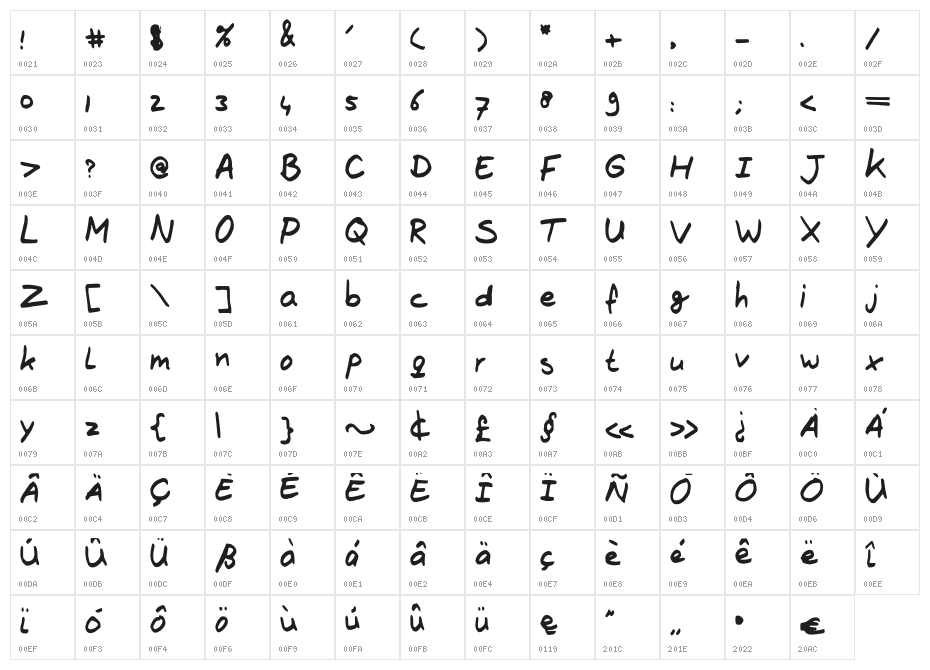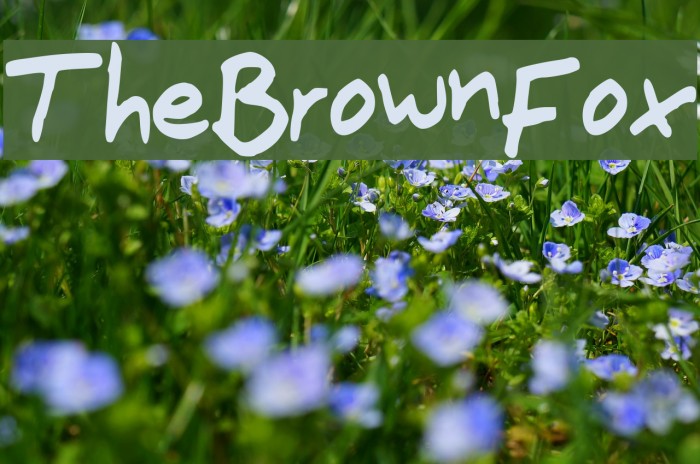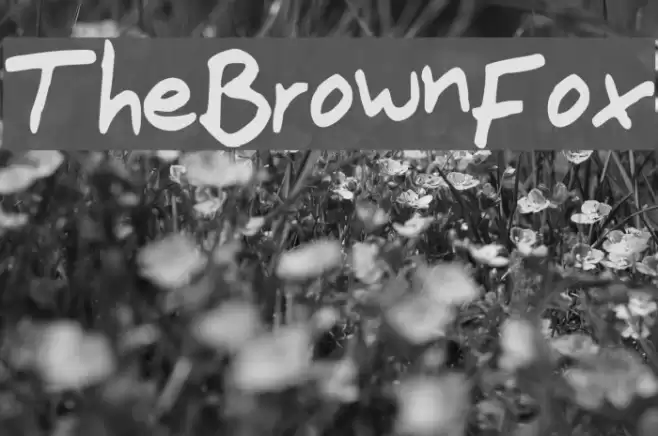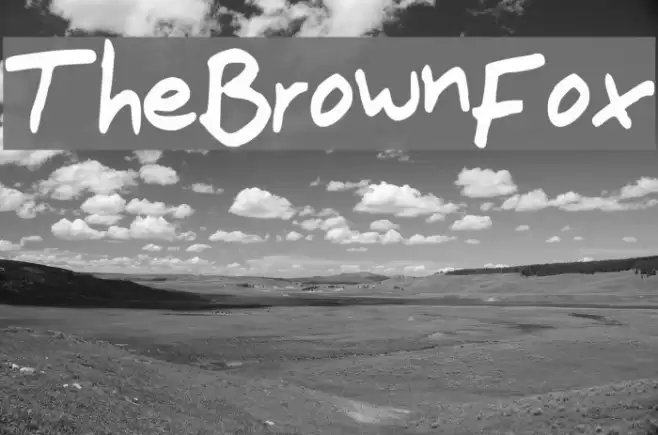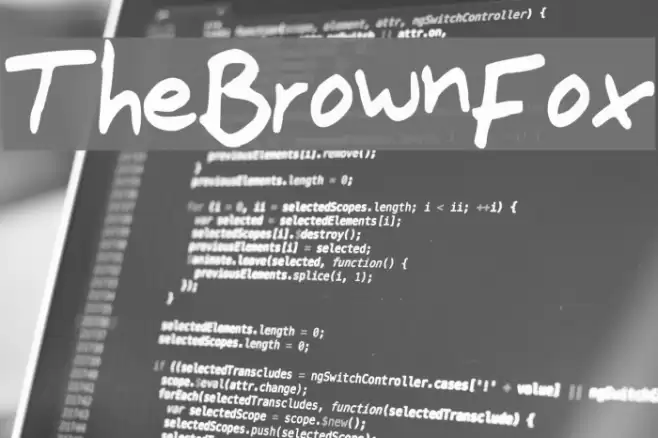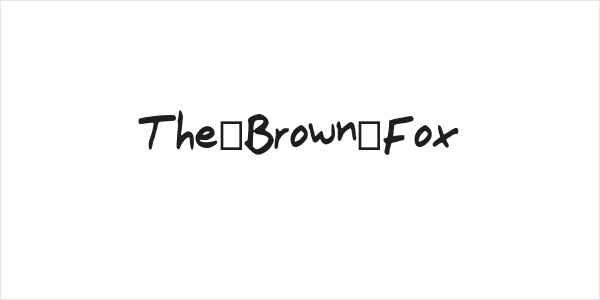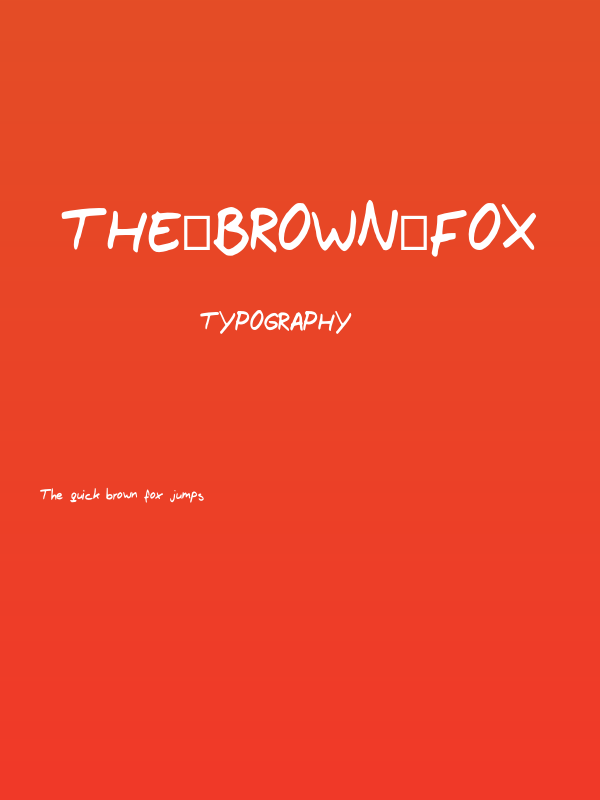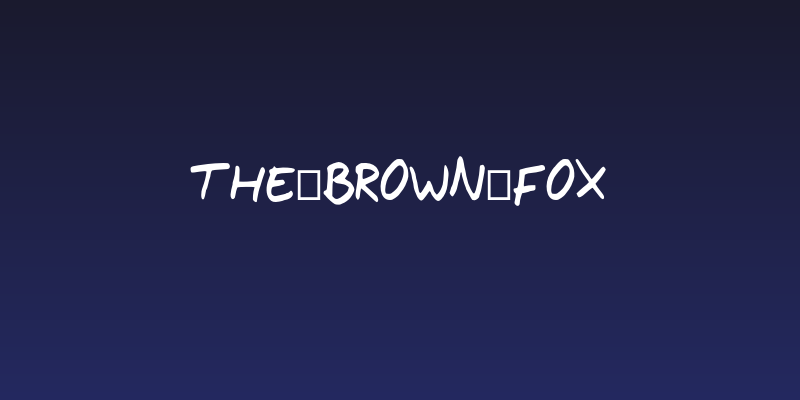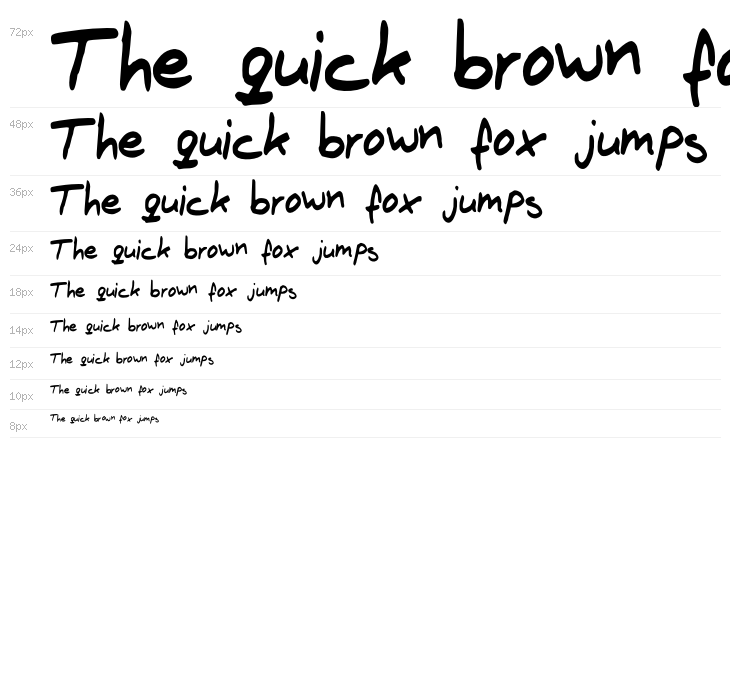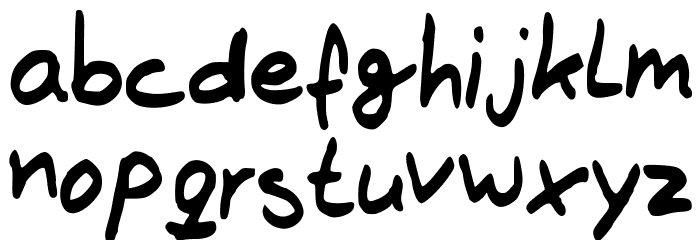
The_Brown_Fox Font
The_Brown_Fox Description
This font features a playful and casual handwritten style, characterized by its bold and slightly irregular strokes. The letters are rounded and have a natural flow, giving it a friendly and approachable appearance. The uppercase and lowercase letters maintain a consistent style, with a slight slant that adds to the informal feel. The numbers and special characters follow the same design, ensuring uniformity across all glyphs. This font is ideal for projects that require a personal touch, such as greeting cards, invitations, or informal branding materials.
| Use Case | Headlines, Logos, Informal text |
| Proposed Projects | Greeting cards, invitations, informal branding, children's books, personal blogs. |